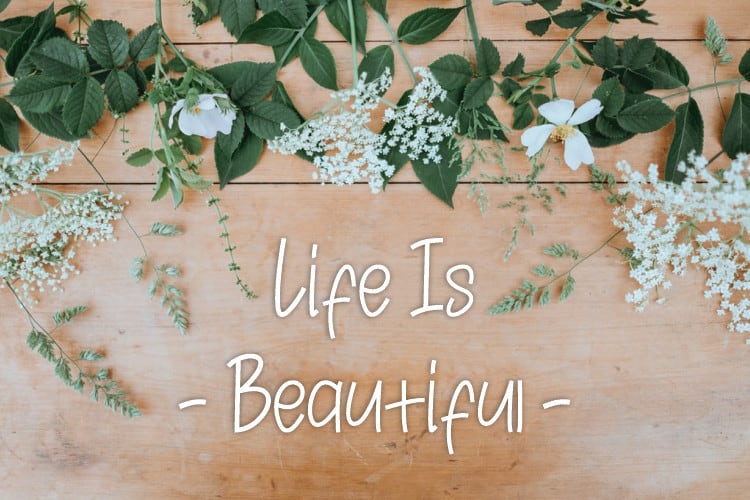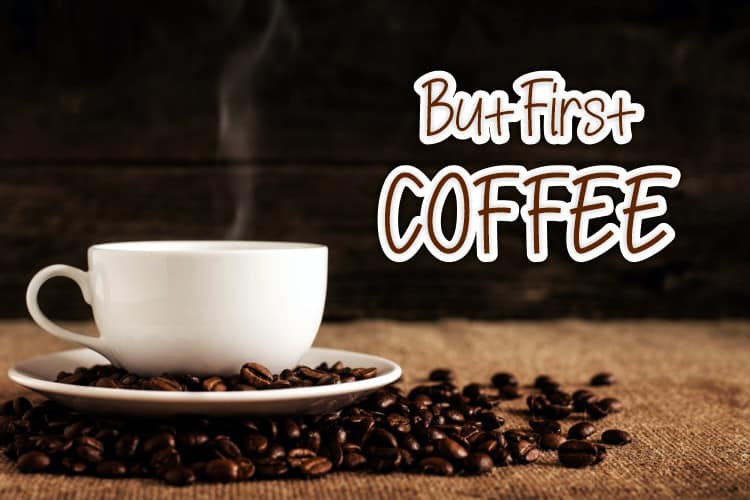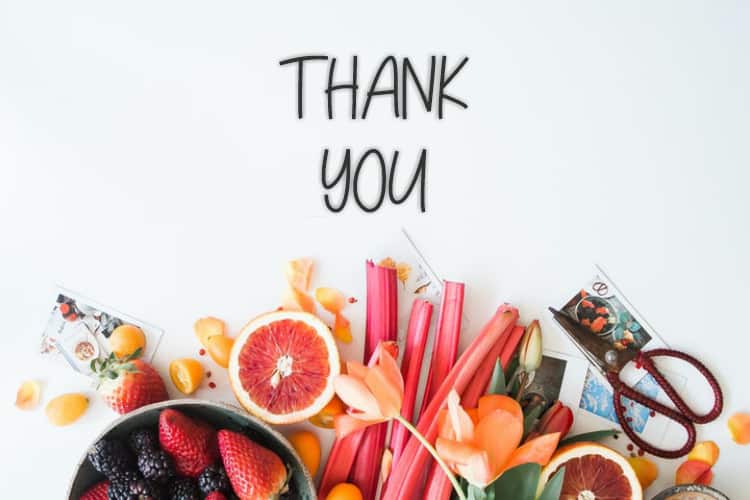
Purchuse Handwritten Font
Purchuse Handwritten Font is a sweet and friendly handwritten font. Its natural and unique style makes it incredibly fitting to a large pool of designs. The only limit is your imagination!